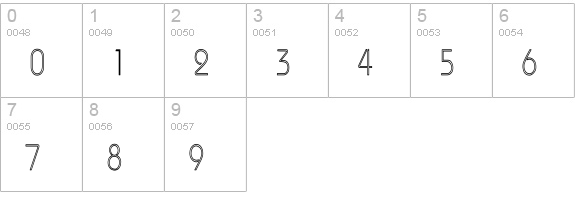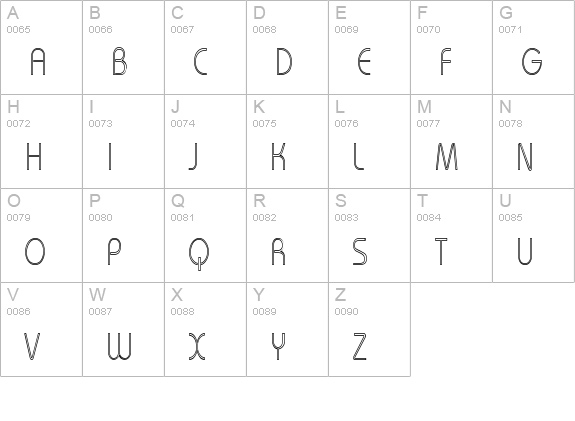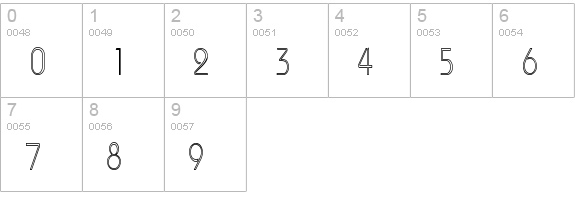
Bauhaus-Light-LHC Font Details
Bauhaus-Light-LHC is a refined, elegant variant in the Bauhaus typeface family \xE2\x80\x94 well suited to elegant body text, refined sub-headings, and luxury branding.
Bauhaus-Light-LHC font is a modern and elegant typeface that exudes sophistication and simplicity. Its clean lines and geometric shapes make it perfect for a wide range of design projects, from branding to editorial design. The light weight of the font adds a touch of airy elegance to any text, making it versatile for both headings and body copy. What makes Bauhaus-Light-LHC font even more appealing is that it is available for free download at FontsMarket.com. This means that you can easily access this stylish font and use it in your projects without any cost. Don't miss out on the opportunity to elevate your designs with the chic and timeless Bauhaus-Light-LHC font, now freely available for download.